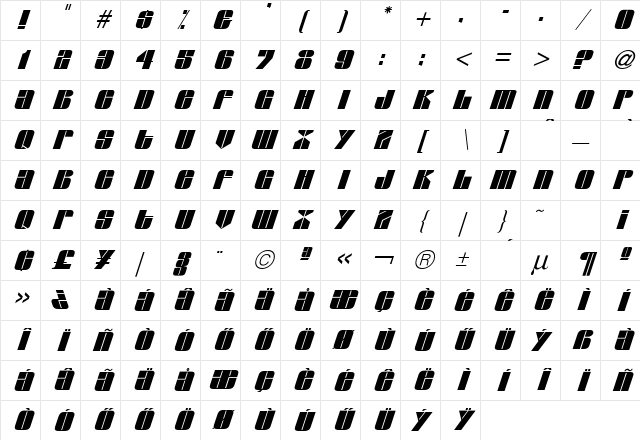
Glacier HU Italic Free Font
Glacier HU Italic
Design Context for Glacier HU
Glacier HU is a composed and adaptable typeface that performs quietly and consistently across a wide range of design contexts. The slanted form adds forward momentum and visual energy.
Pro Tip: Use Glacier HU for emphasis, pull quotes, and subheadings where its slanted energy can add rhythm to the layout.